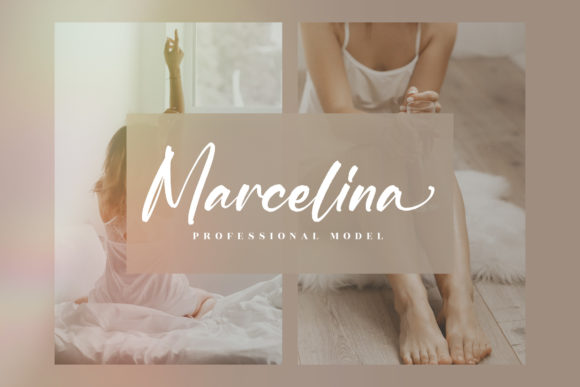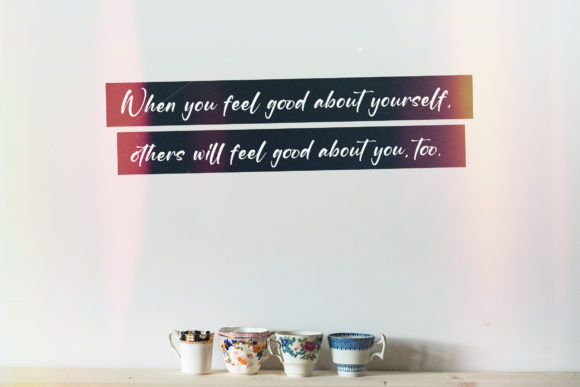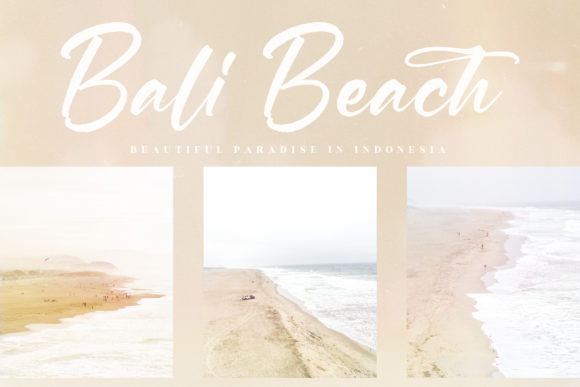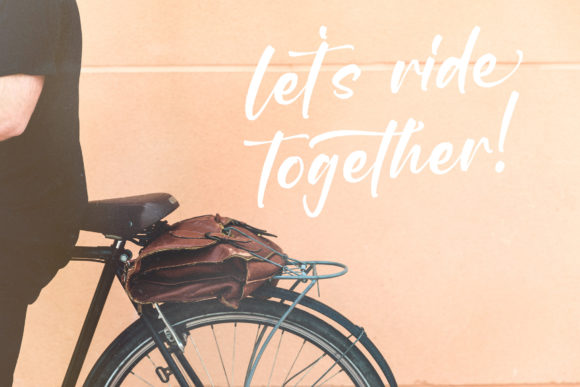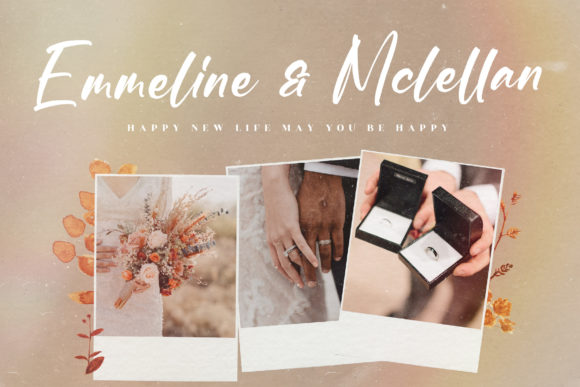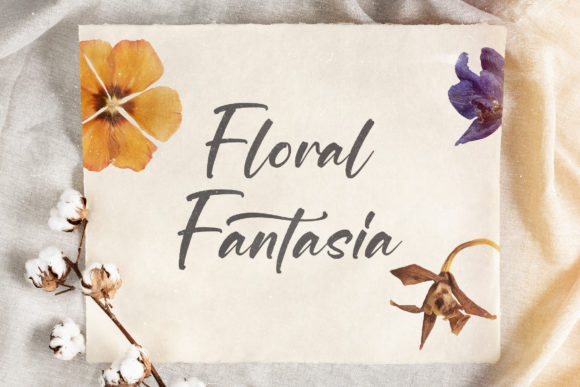
Introduction to Santallria Font
Santallria is a beautiful script font, suitable for logos, branding projects, homeware designs, product packaging, mugs, quotes, posters, and anything that may require a delicate taste.
Key Features of Santallria Font